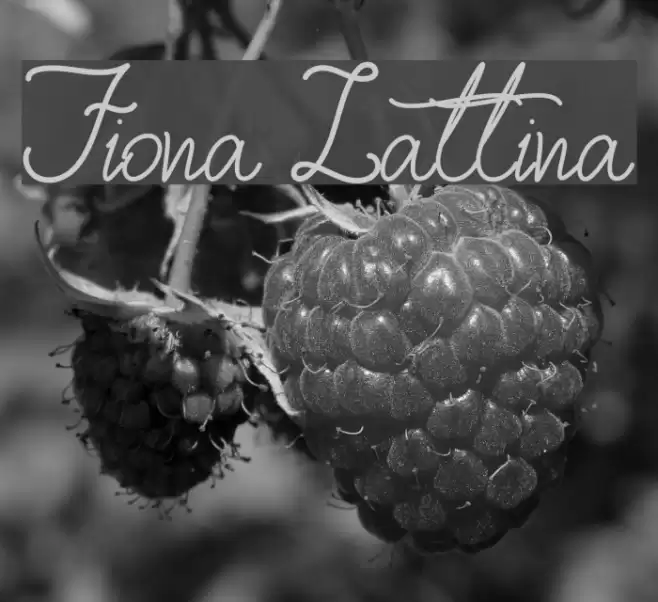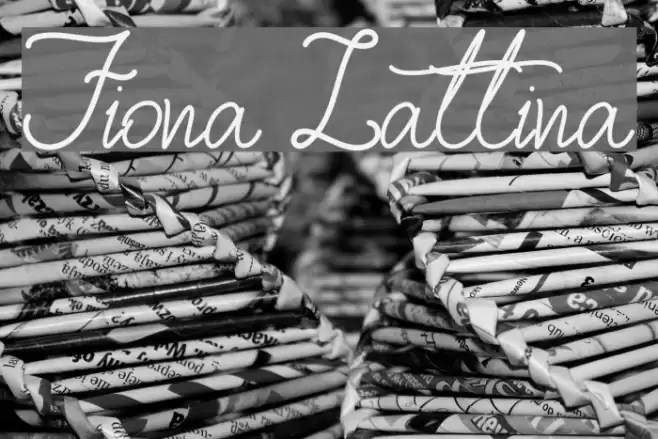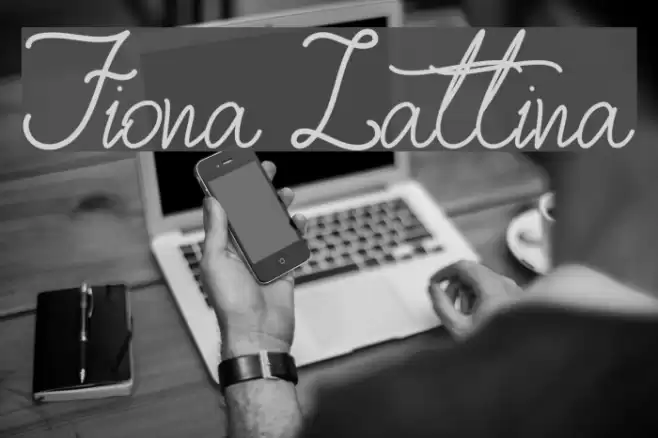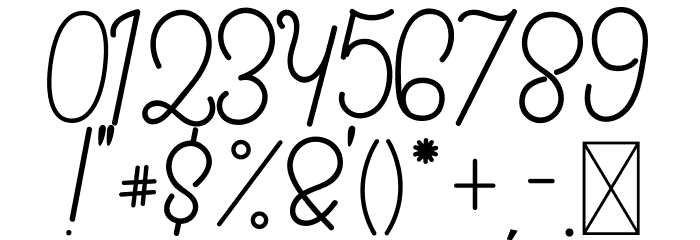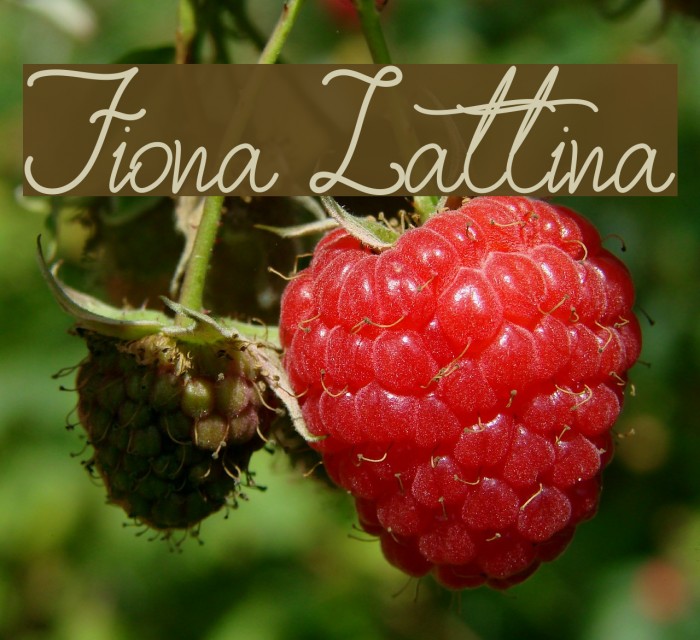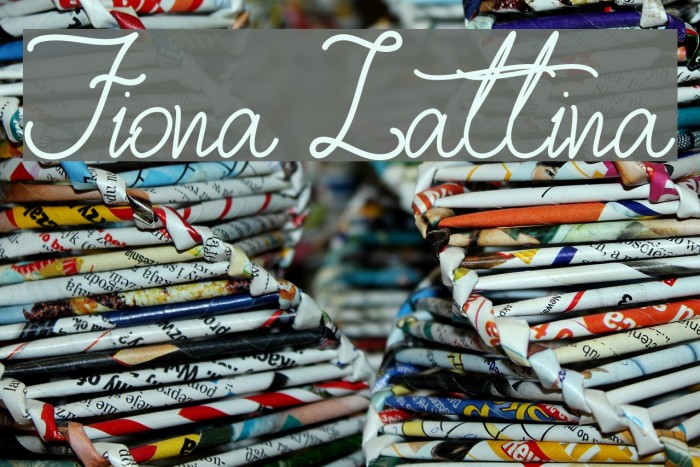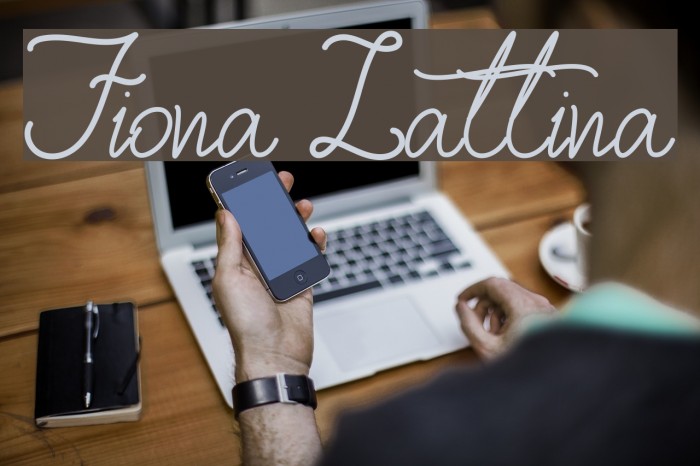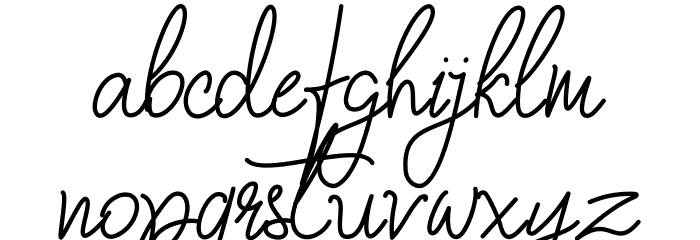
Fiona Lattina Font
Fiona Lattina Description
This font exudes a graceful and elegant script style, characterized by its flowing, cursive letterforms that mimic the fluidity of handwriting. The uppercase letters are slightly more structured, maintaining a balance between formality and artistic flair, while the lowercase letters are more freeform, adding a touch of whimsy. The numerals are consistent with the overall style, featuring smooth curves and a slightly playful appearance. Special characters are well-integrated, maintaining the font's cohesive aesthetic. The overall impression is one of sophistication and creativity, making it suitable for a variety of design applications.
A graceful and elegant script font with flowing, cursive letterforms from Uncategorized fonts.
- Proposed Projects: Ideal for wedding invitations, greeting cards, elegant branding, and artistic projects.
- Overall Style: Elegant, Artistic
- Use Case: Invitations, Branding, Artistic projects